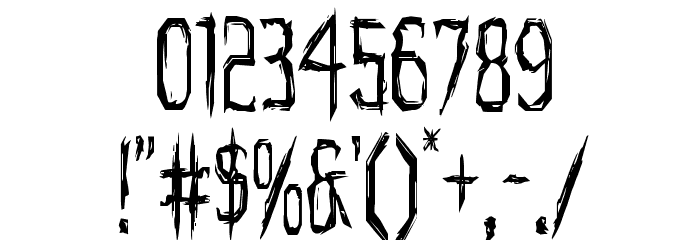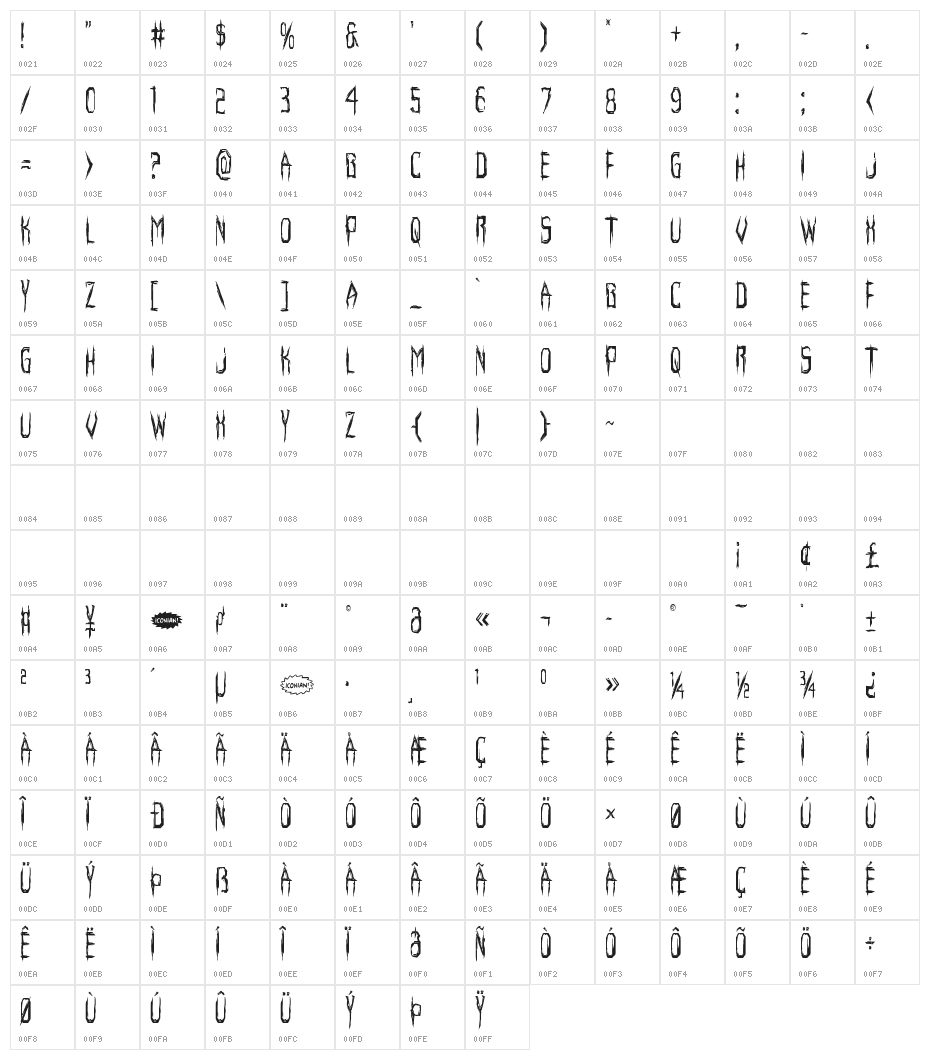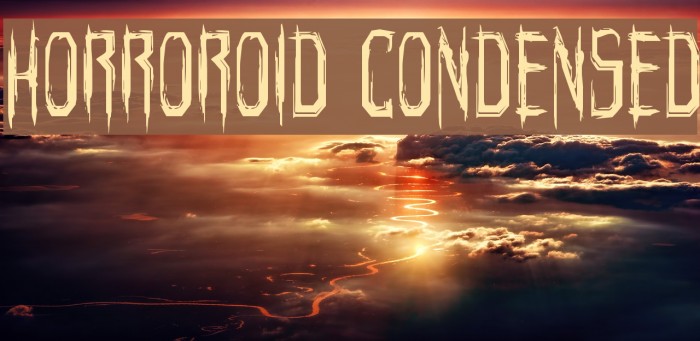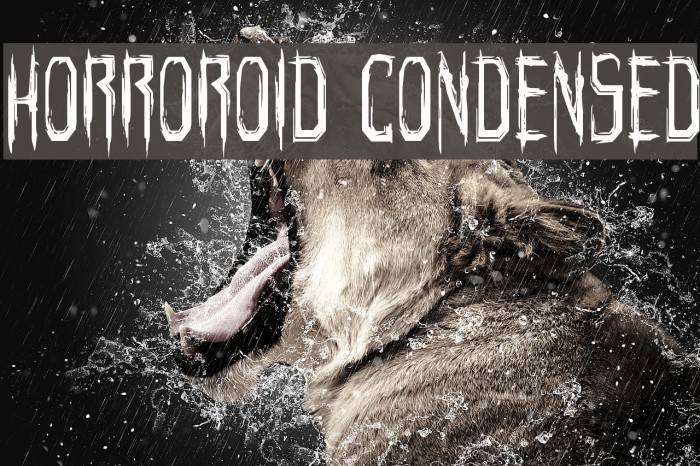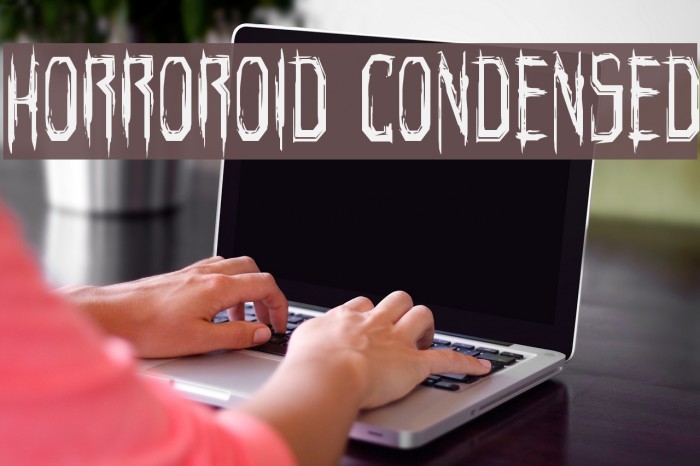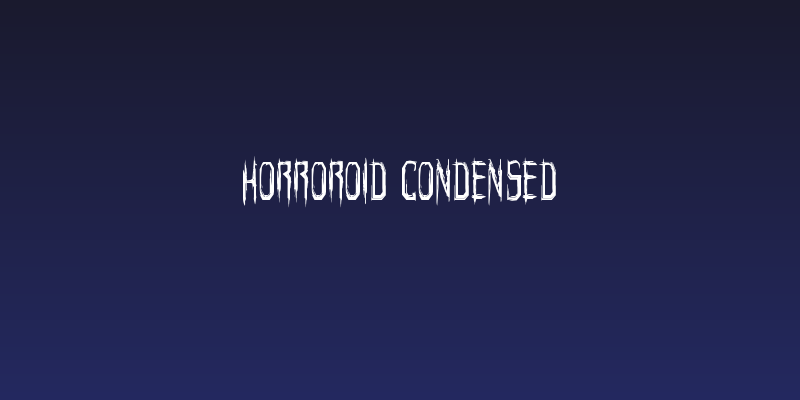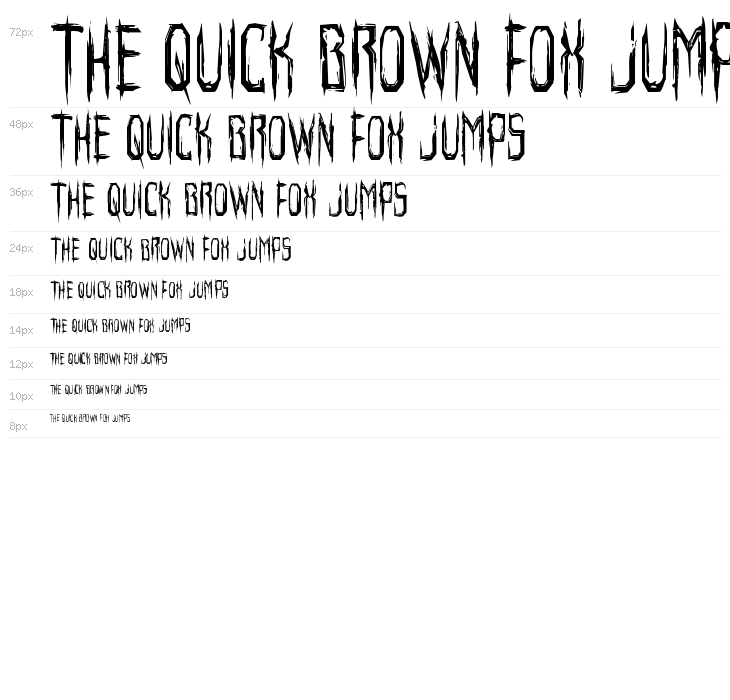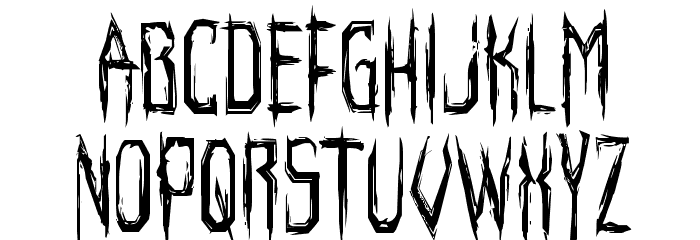
Horroroid Condensed Font
Horroroid Condensed Description
This font features a striking, jagged design that evokes a sense of horror and unease. The characters are sharply pointed with irregular edges, resembling claw marks or shattered glass. The condensed nature of the font adds to its intensity, making it ideal for creating a dramatic impact. Each letter maintains a consistent height, while the varying stroke thickness and angular lines contribute to its chaotic appearance. The numerals and special characters follow the same eerie style, ensuring a cohesive look across all text elements.
| Proposed Projects | Ideal for horror movie posters, Halloween event flyers, video game titles, and any project requiring a chilling, dramatic effect. |